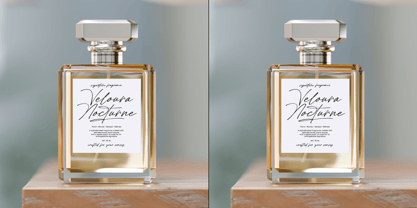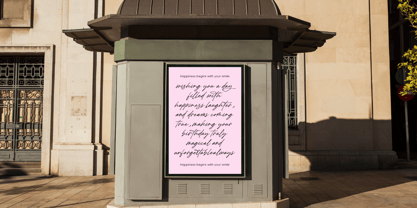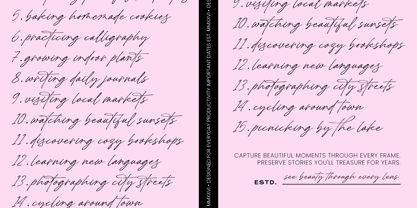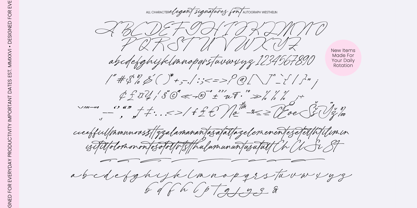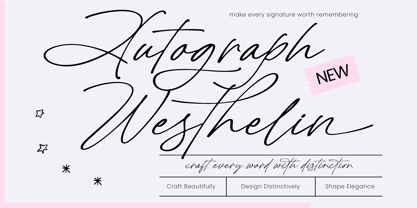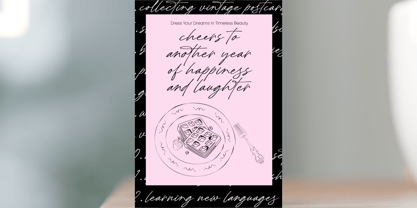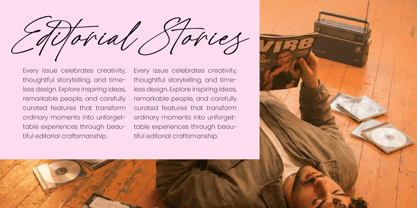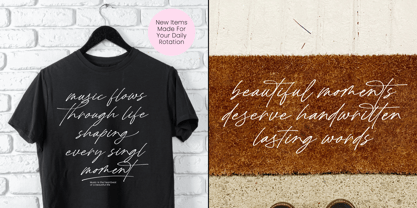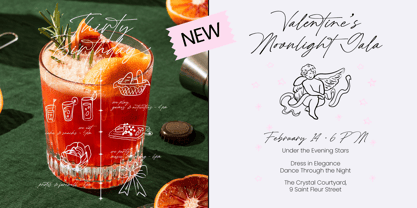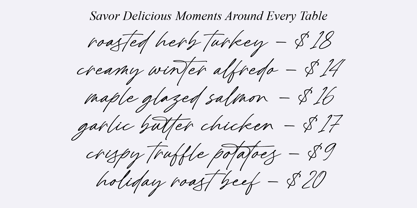
Autograph Westhelin
The Autograph Westhelin Font Family was designed by Heru Utama Putra and published by Letterena Studios. Autograph Westhelin contains 2 styles and family package options. More about this family
Autograph Westhelin - Elegant Signature Font
Elevate your creative vision with a touch of timeless sophistication. The Autograph Westhelin - Elegant Signature Font is a premium typographic asset designed to infuse any project with organic elegance and a personalized feel. Its fluid, sweeping strokes mimic authentic handwriting, providing a high-end aesthetic that resonates with discerning audiences seeking exclusivity and style.
Engineered for high-impact visual identities, this typeface is the ultimate solution for professional designers. Autograph Westhelin - Elegant Signature Font is perfect for luxury branding, premium packaging, and high-fashion editorial design. Whether you are crafting bespoke wedding invitations, sophisticated logos, or chic social media content, its graceful silhouettes ensure your brand stands out with unrivaled prestige.